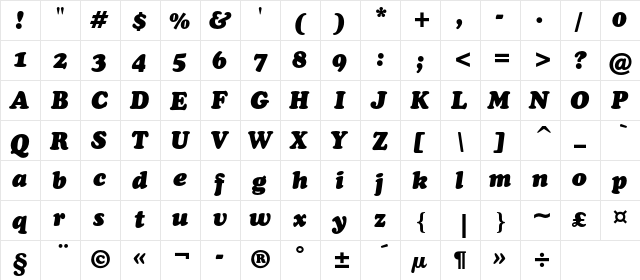
CooperBlackC BT Italic
Design Context for CooperBlackC BT Typeface
CooperBlackC BT takes a measured approach to typography — its balanced proportions and neutral character make it a reliable workhorse for both digital and print work. The dynamic lean of this cut emphasises speed and emphasis in any layout.
Pro Tip: Try CooperBlackC BT for annotation and caption copy alongside an upright companion — the contrast in angle creates a dynamic but ordered typographic system.